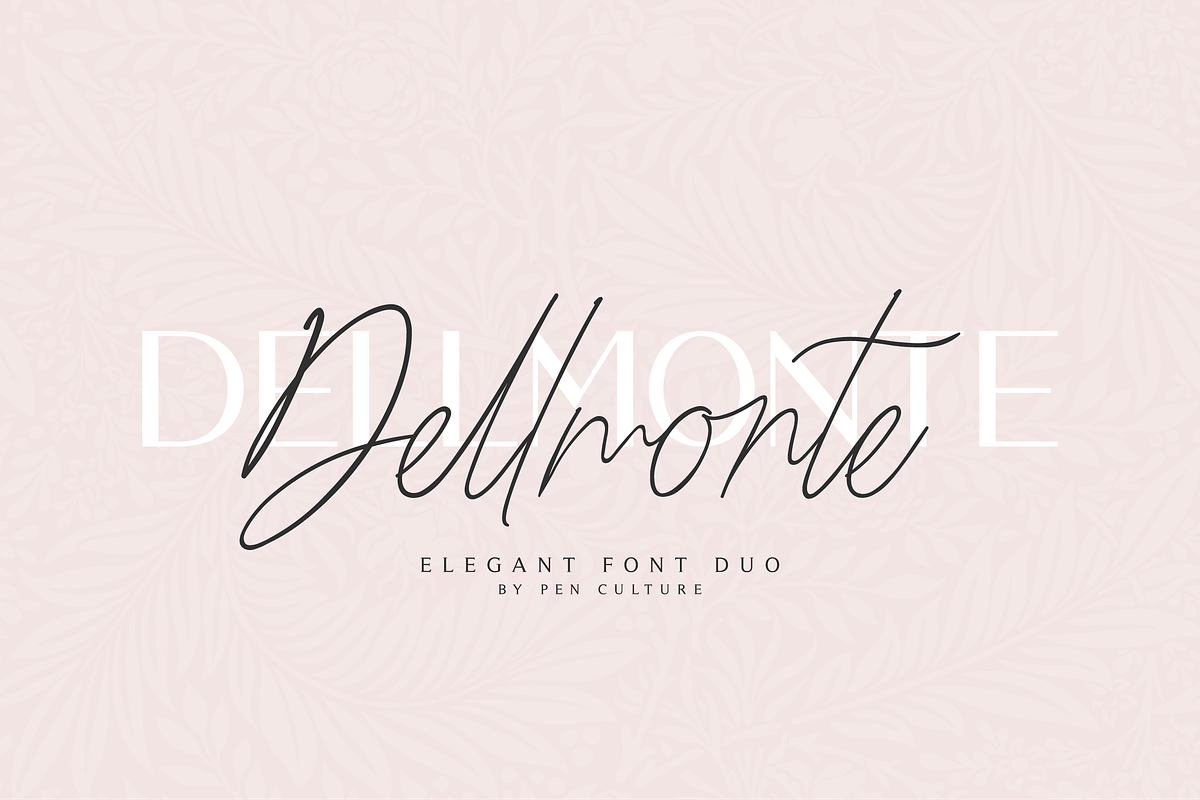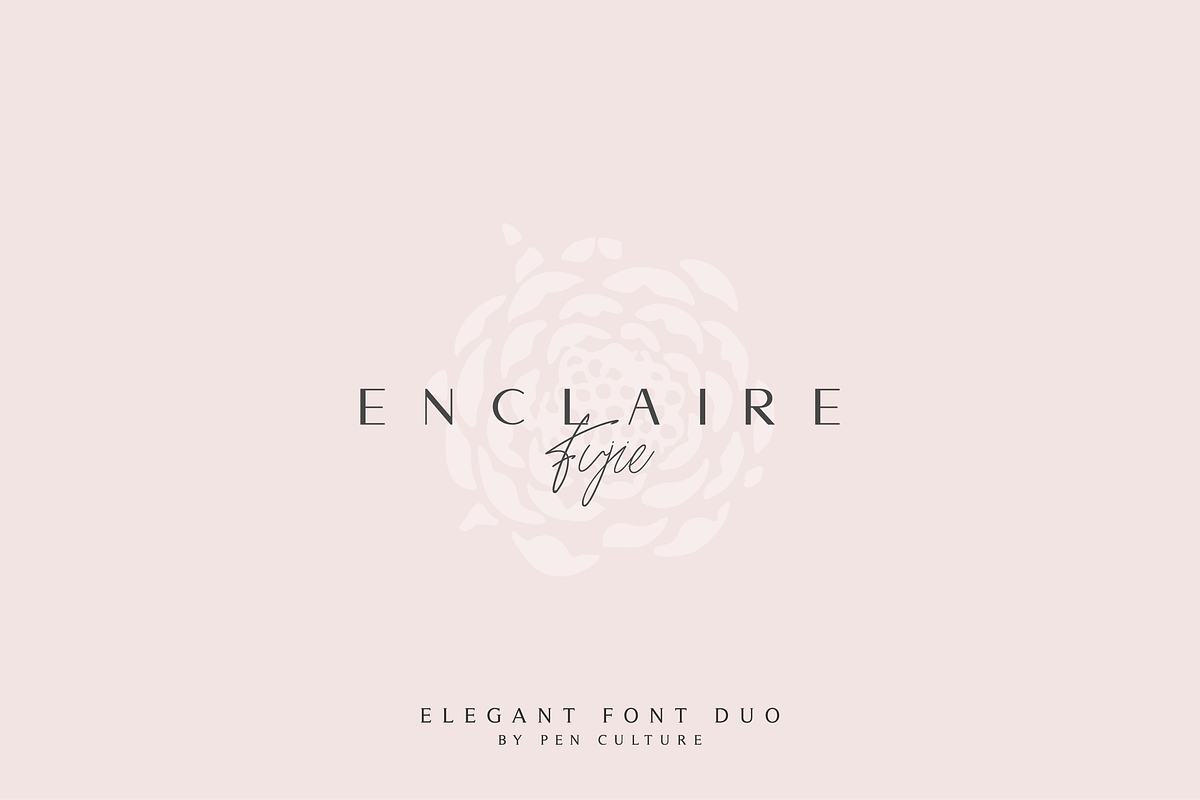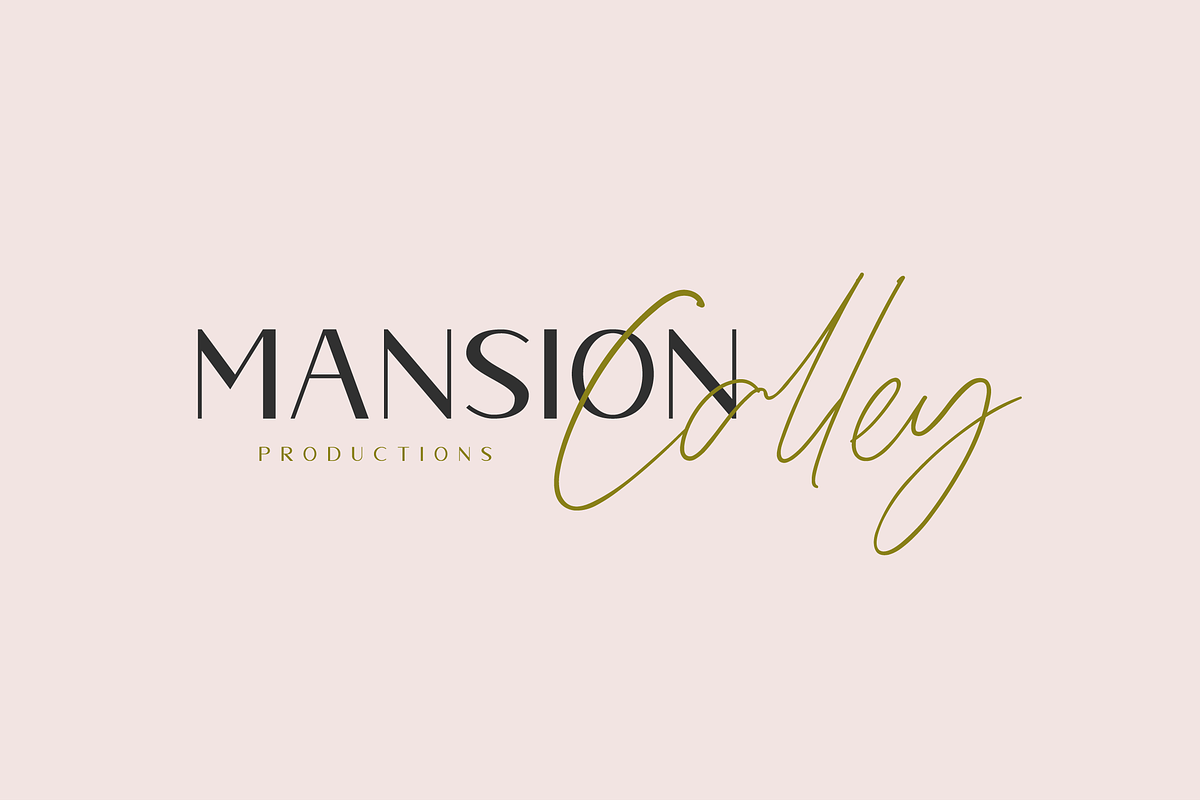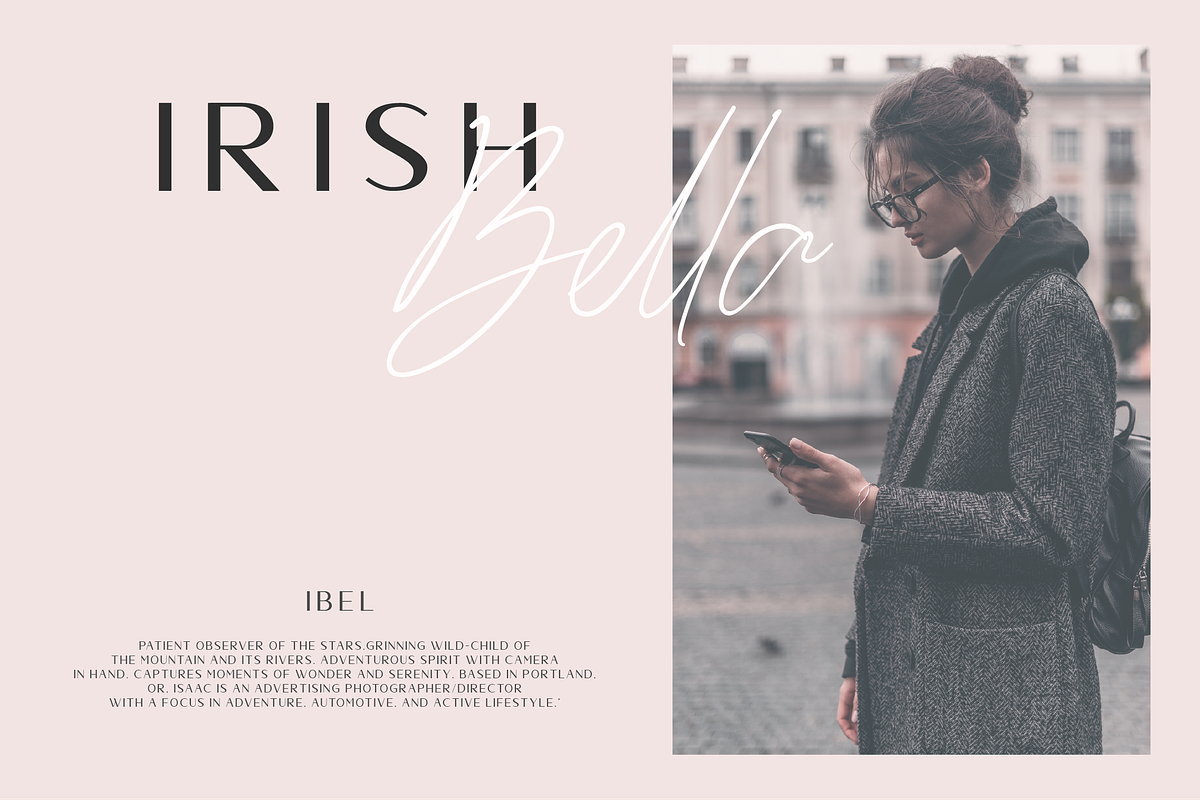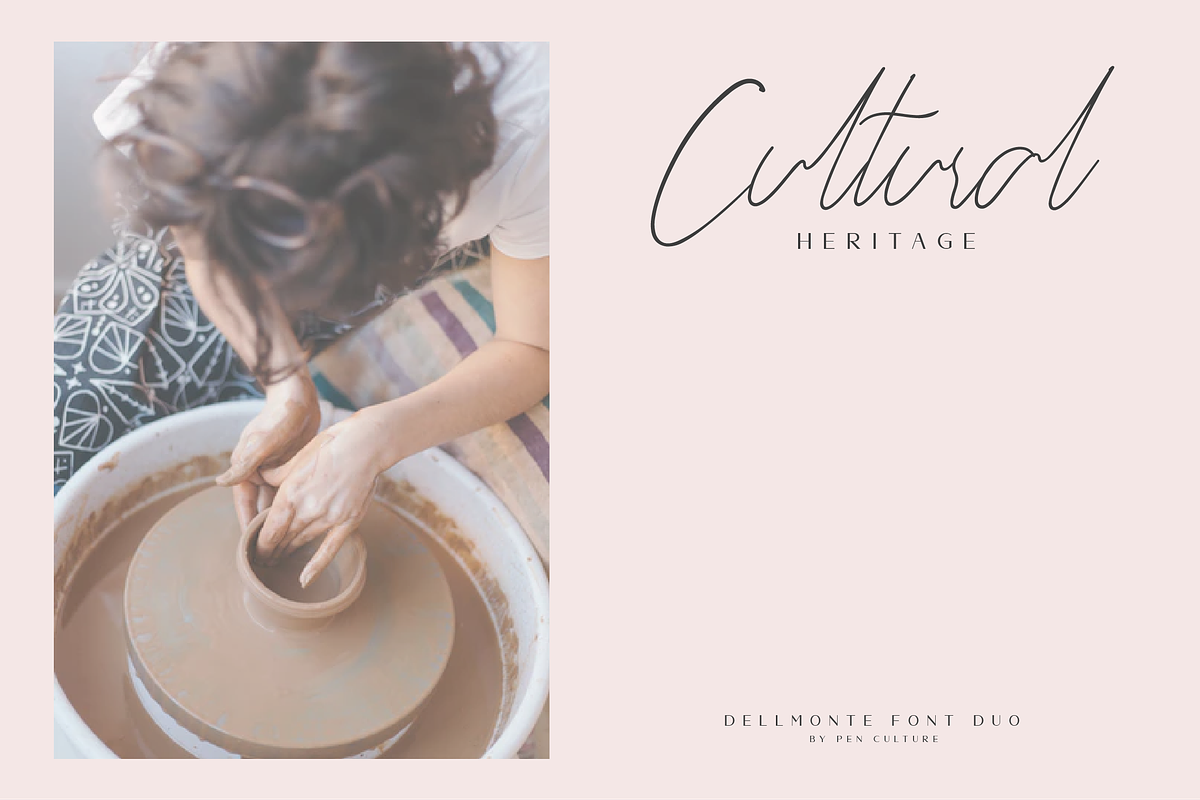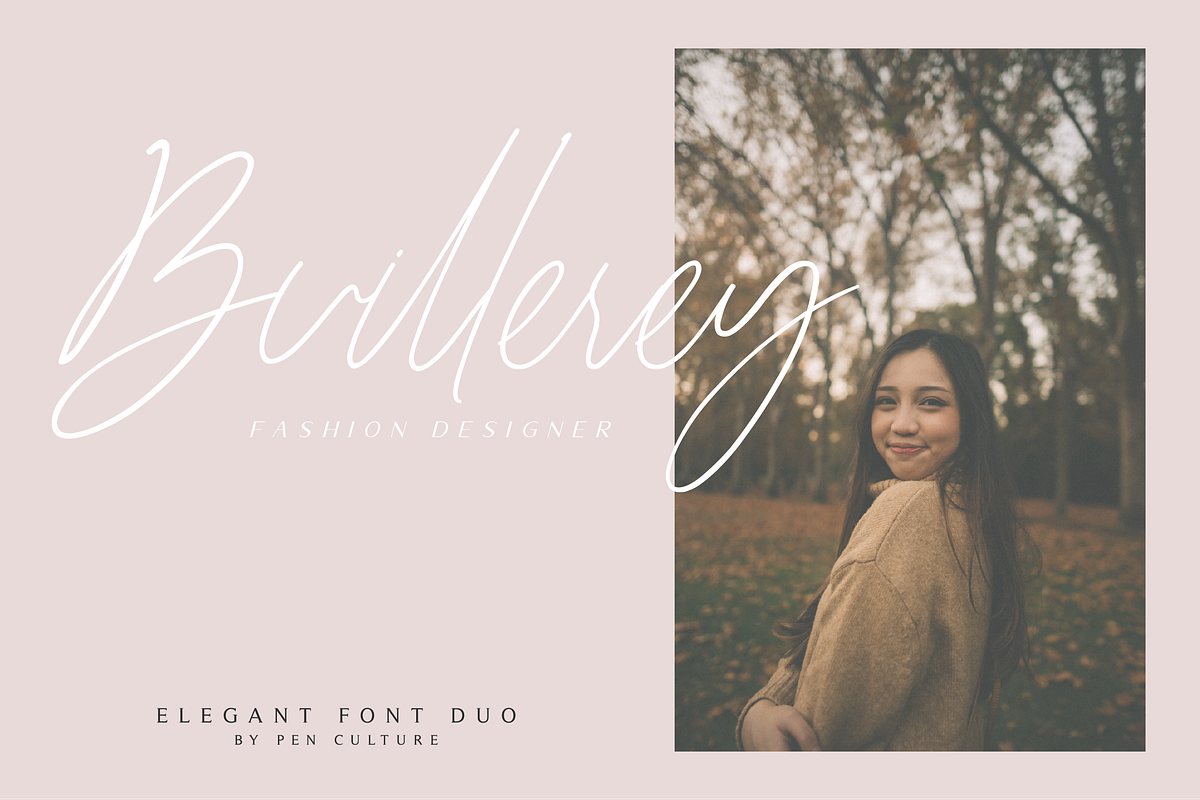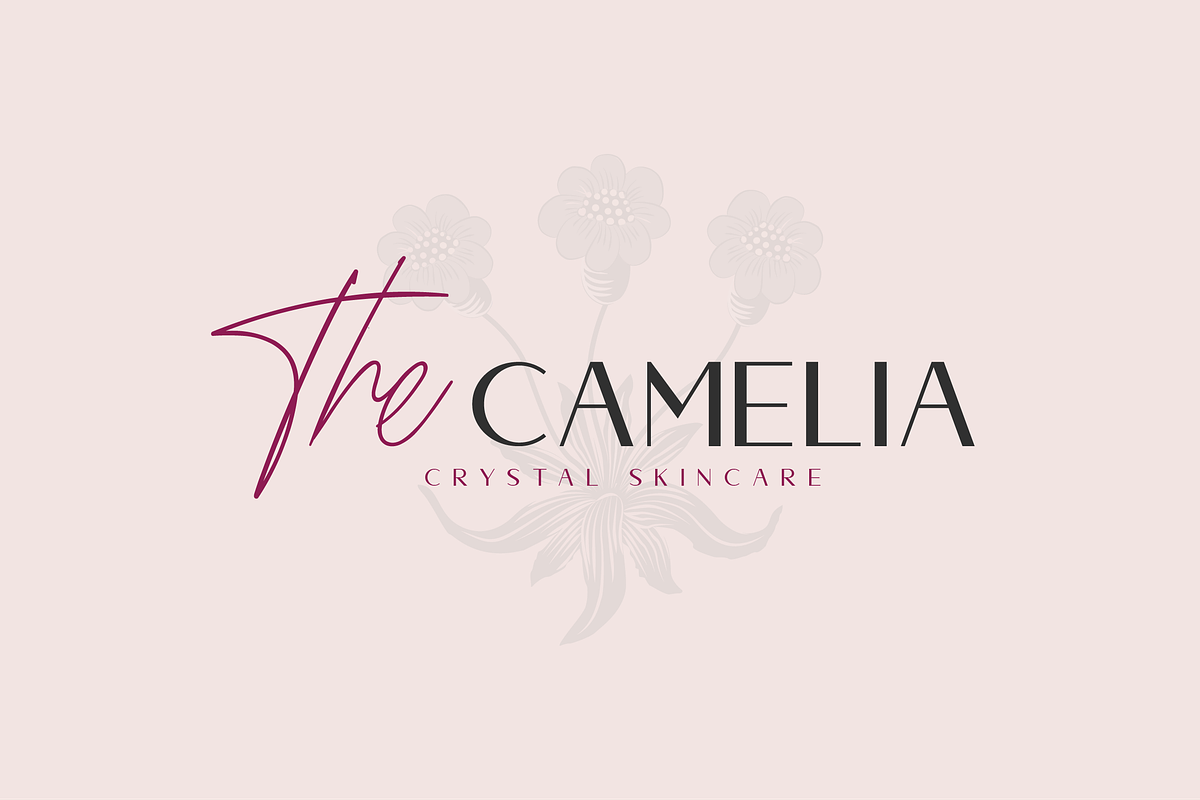
Dellmonte - Elegant Font Duo
Introducing the new Dellmonte - Elegant Font Duo!
Dellmonte comes in 2 font variants, Dellmonte sans and Dellmonte script, Specific OpenType features include all caps, multilingual support (including currency symbols), 94 ligatures, standard numbers, and many others. this font perfect for any purpose, and very easy to use.
What Inside And Feature :
Dellmonte script with 94 Ligatures
Numbers + Punctuation
Foreign Language Support
Why Dellmonte - Elegant Font Duo is worth a look
Dellmonte - Elegant Font Duo by Pen Culture fits naturally into Branding, posters, packaging, typography.